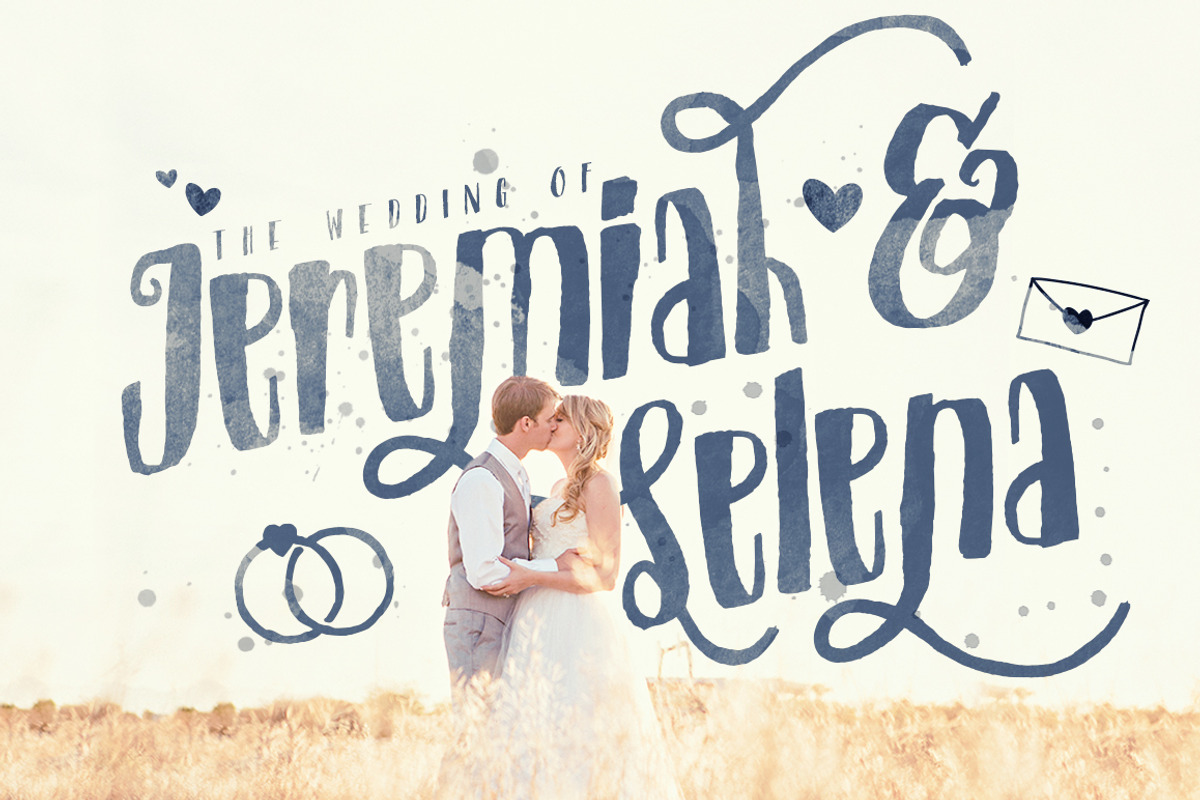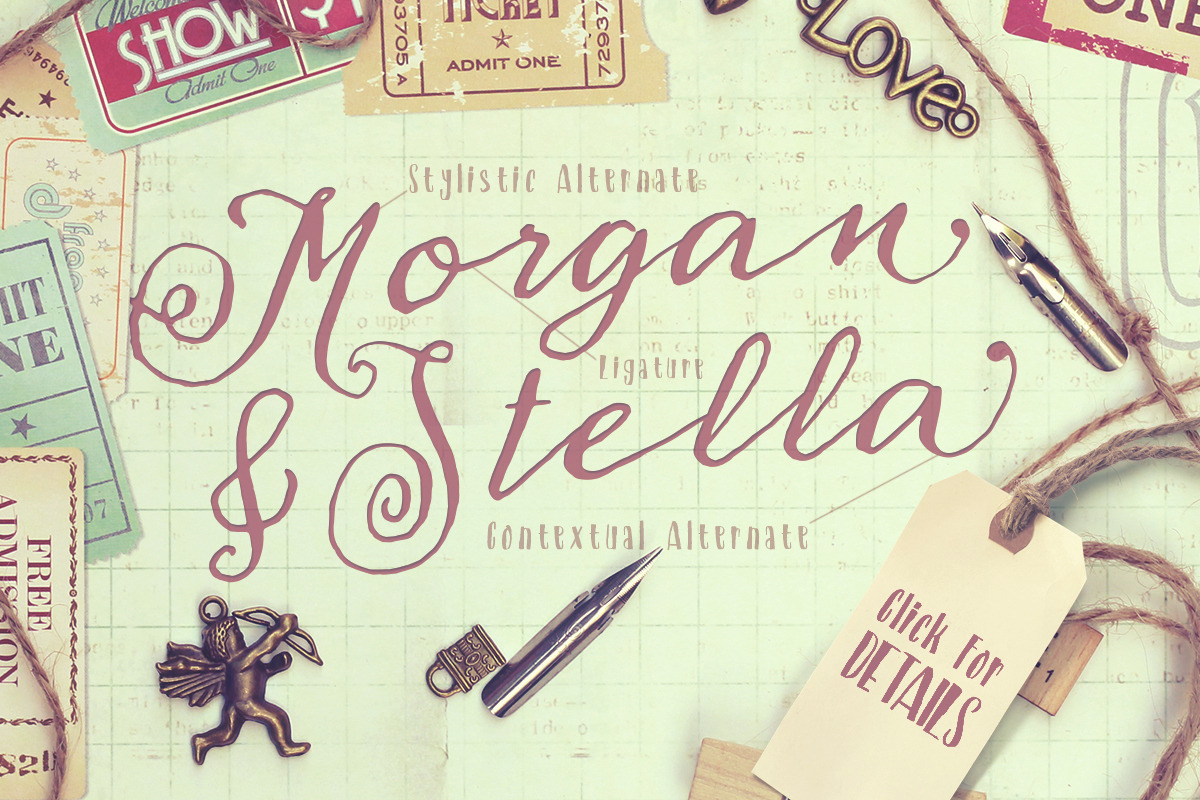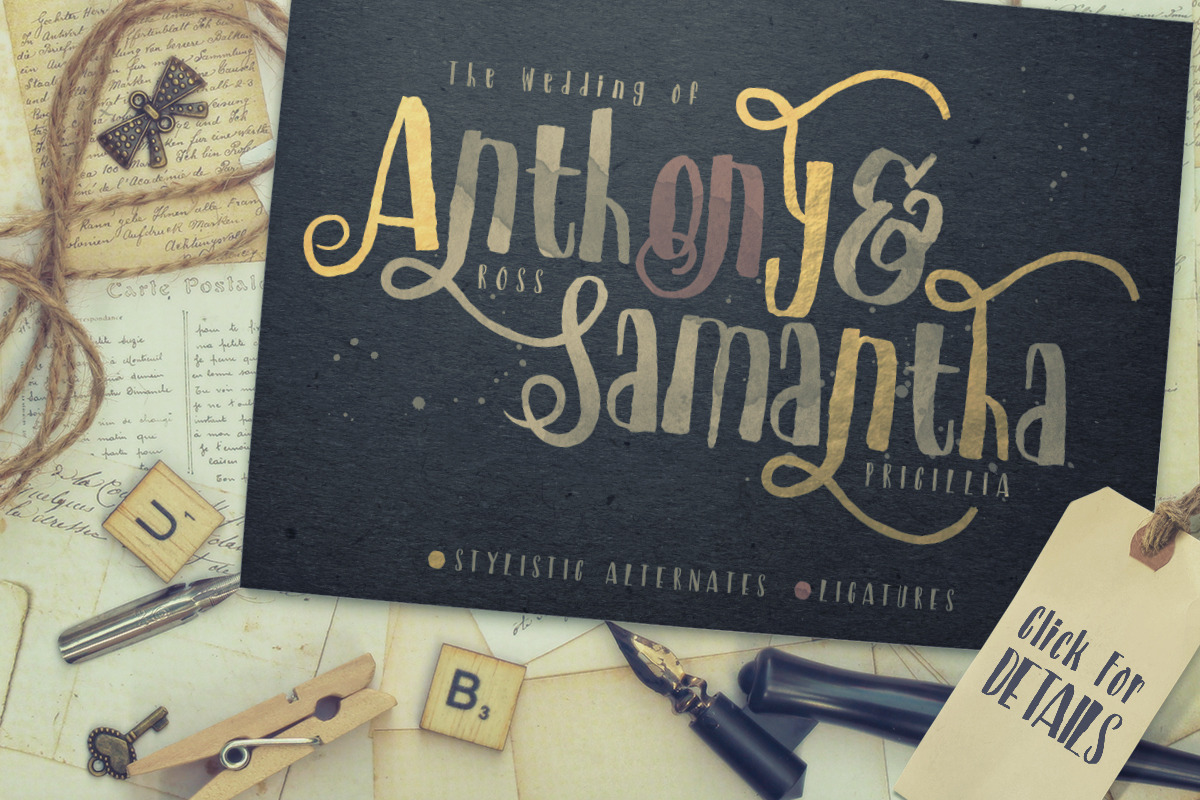
Just Married! Wedding font
Just Married! Wedding font by Konstantine Studio is a font selected for branding, posters, packaging, typography.
- Features (Click the preview for more details) : • Uppercase • Lowercase • Numerals & Punctuations (OpenType Standard) • Accents (Multilingua
- Perfect for the Bride and Groom name if you want to type it with a skinny handwriting and far kerning to make it simply romantic and 100% pu
Just Married! Wedding font by Konstantine Studio fits naturally into Branding, posters, packaging, typography.